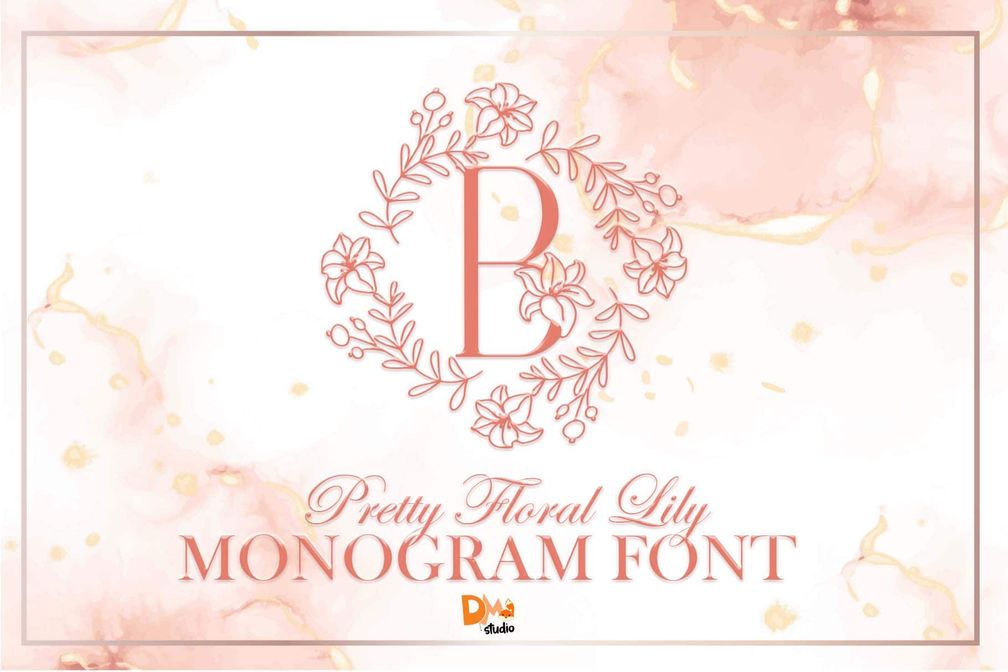
Pretty Floral Lily Monogram
Pretty Floral Lily Monogram – Elegant & Decorative Floral Monogram Font
Pretty Floral Lily Monogram is a beautifully designed typeface featuring delicate lily-inspired floral details. This ornamental monogram font is perfect for wedding invitations, luxury branding, personalized stationery, boutique packaging, and artistic projects. Its graceful floral aesthetics add a refined and sophisticated touch to any design.
✔ Intricate Lily Floral Design – Each letter is decorated with elegant, hand-drawn lily-inspired elements.
✔ Timeless & Ornamental Aesthetic – A blend of floral elegance and classic monogram style.